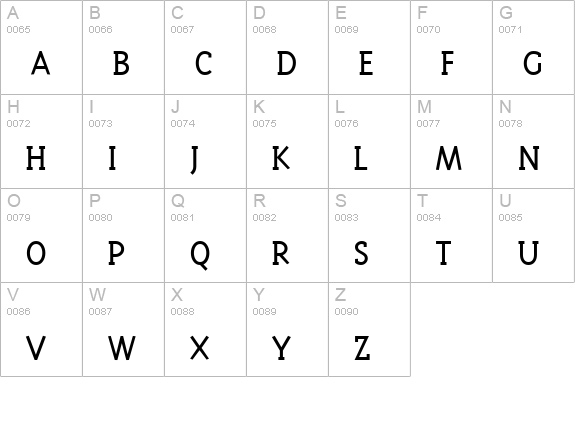
TriplexSerifLightOldstyle Regular Font Details
TriplexSerifLightOldstyle Regular is the standard, neutral variant in the TriplexSerifLightOldstyle typeface family \xE2\x80\x94 well suited to general body text, paragraphs, and standard typographic work.
TriplexSerifLightOldstyle Regular is a timeless and elegant font that exudes sophistication and refinement. With its delicate serifs and graceful curves, this font adds a touch of classic beauty to any design project. Whether you're creating a logo, designing a website, or crafting a printed piece, TriplexSerifLightOldstyle Regular brings a sense of professionalism and charm. This font's light weight adds an airy and light quality to text, making it perfect for headings, titles, and body copy. The careful balance of thick and thin strokes creates a harmonious and legible texture, ensuring that your message is clear and easy to read. One of the best features of TriplexSerifLightOldstyle Regular is that it is freely available to download at FontsMarket.com. This means that you can access this stunning font without any cost, making it a fantastic option for designers on a budget or those who simply appreciate high-quality resources without breaking the bank. The versatility of TriplexSerifLightOldstyle Regular is another reason to love it. It effortlessly adapts to various design styles and can be used in both traditional and modern layouts. Its timeless appeal ensures that your designs will stand the test of time and remain visually appealing for years to come. Whether you're looking to add a touch of elegance to your next project or simply want to explore a high-quality font that won't cost you a dime, TriplexSerifLightOldstyle Regular is the perfect choice. Download it for free at FontsMarket.com and let your creativity shine with this beautiful and versatile font.